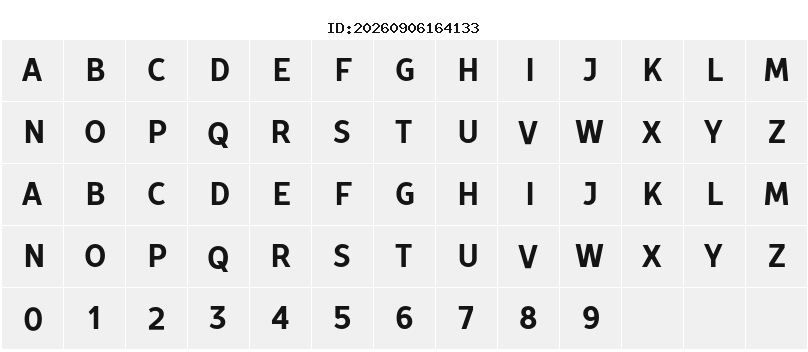
TT Prosto Sans Condensed DEMO Preview
• Font Name: TT Prosto Sans Condensed DEMO
• Description: Designed for Typetype in 2015 by Ivan Gladkikh. TT Prosto Sans Condensed is one of series of font families which were designed for use in web and mobile applications, print and multimedia environments.
About TT Prosto Sans Condensed DEMO.otf
TT Prosto Sans Condensed DEMO.otf is a modern, elegant sans-serif font designed for ultimate readability and visual harmony. Perfect for branding, headlines, web design, and print materials.